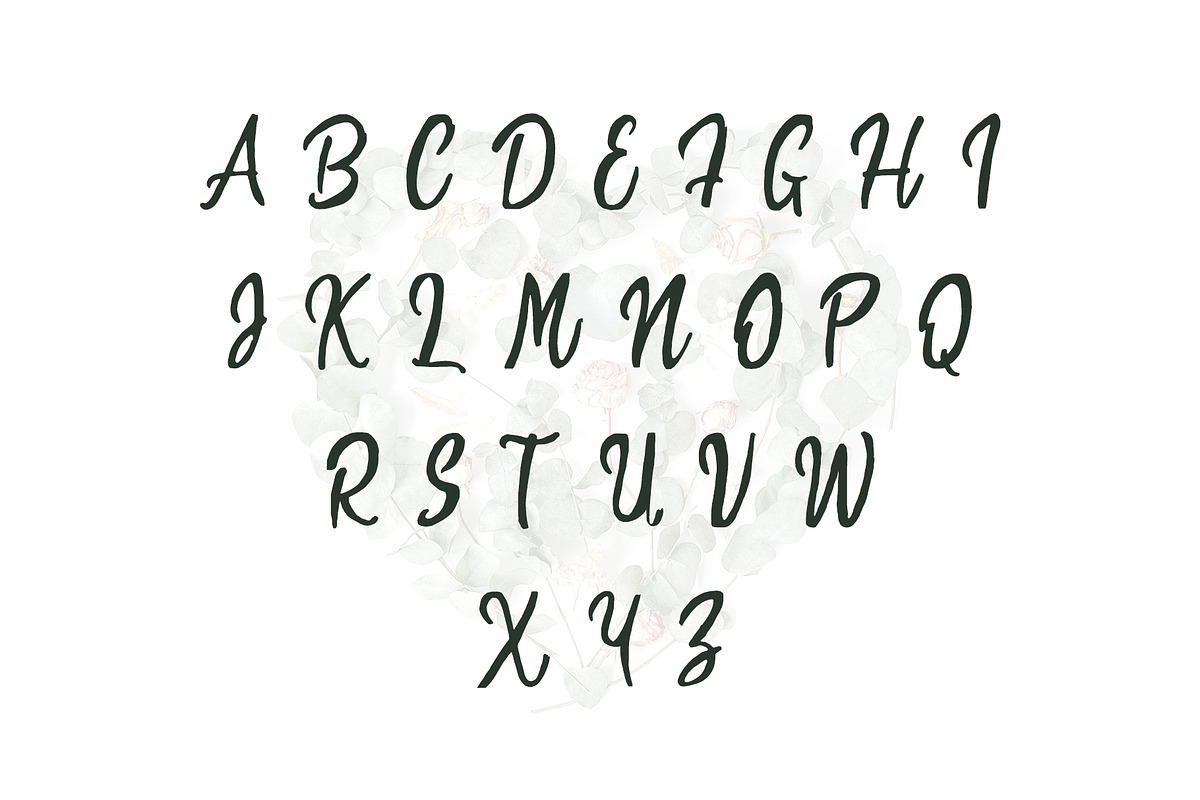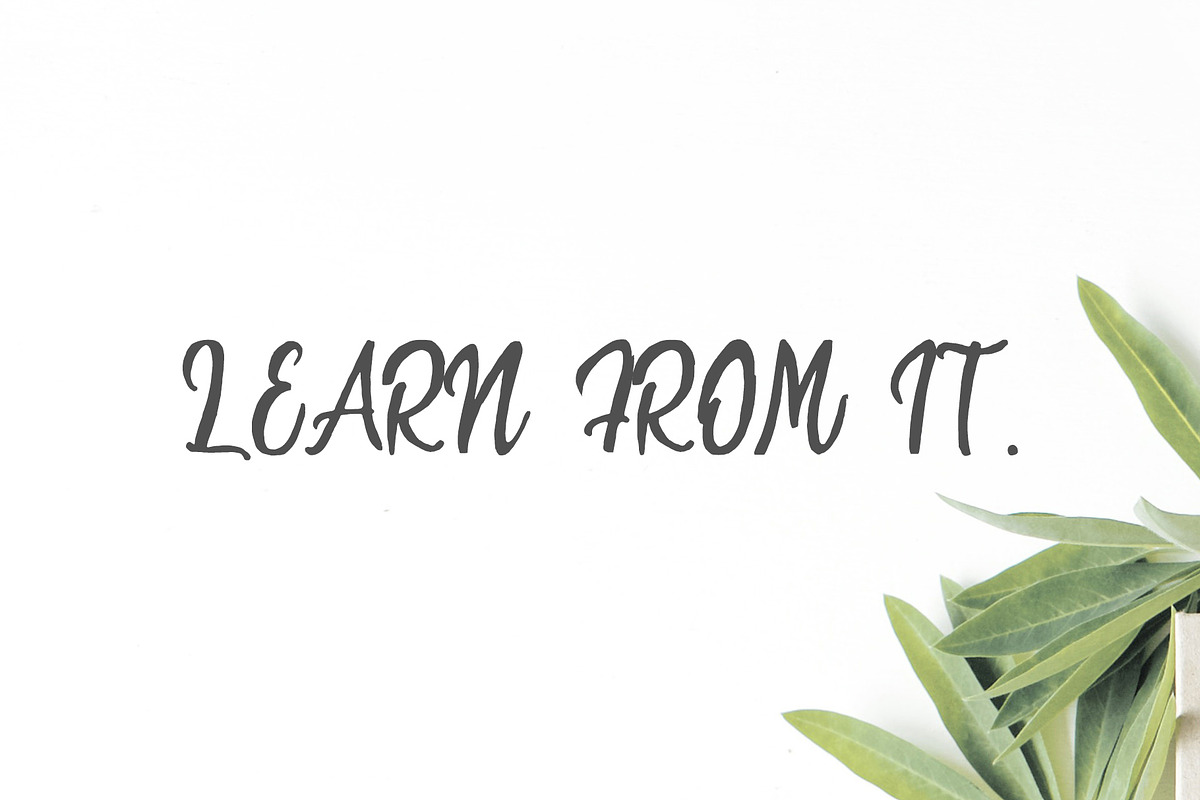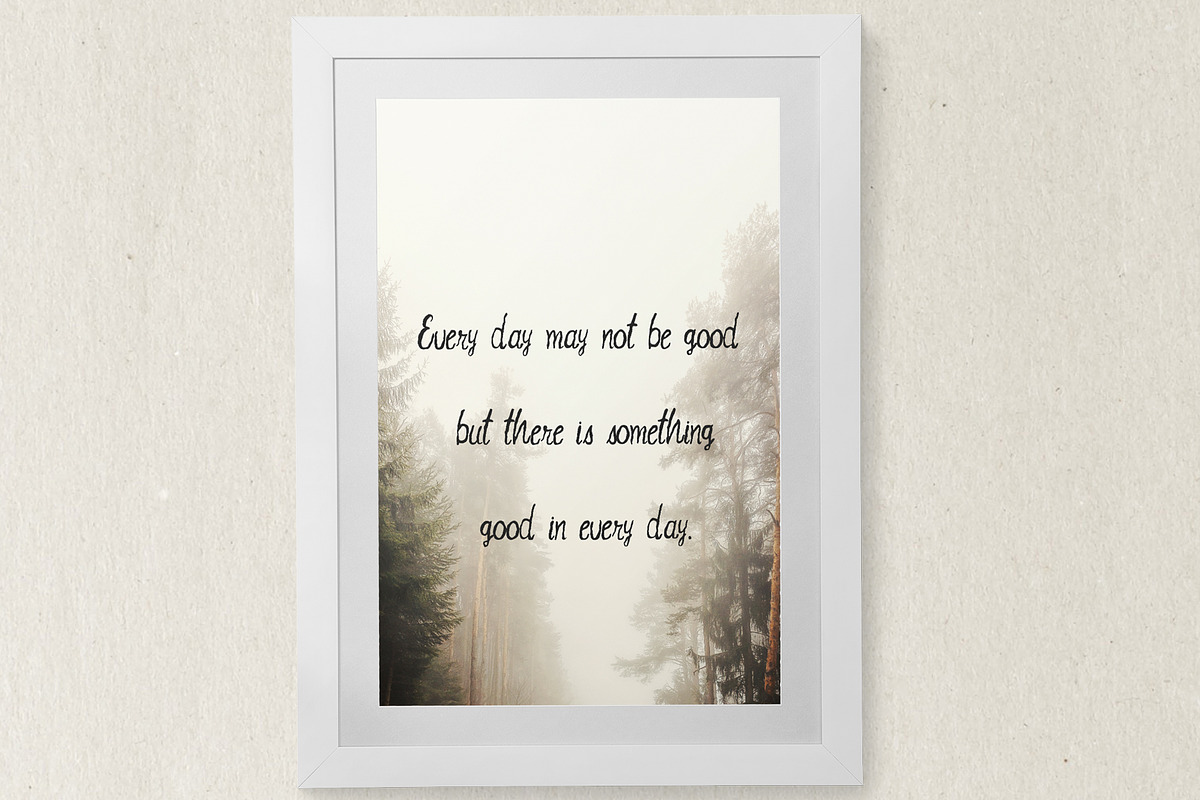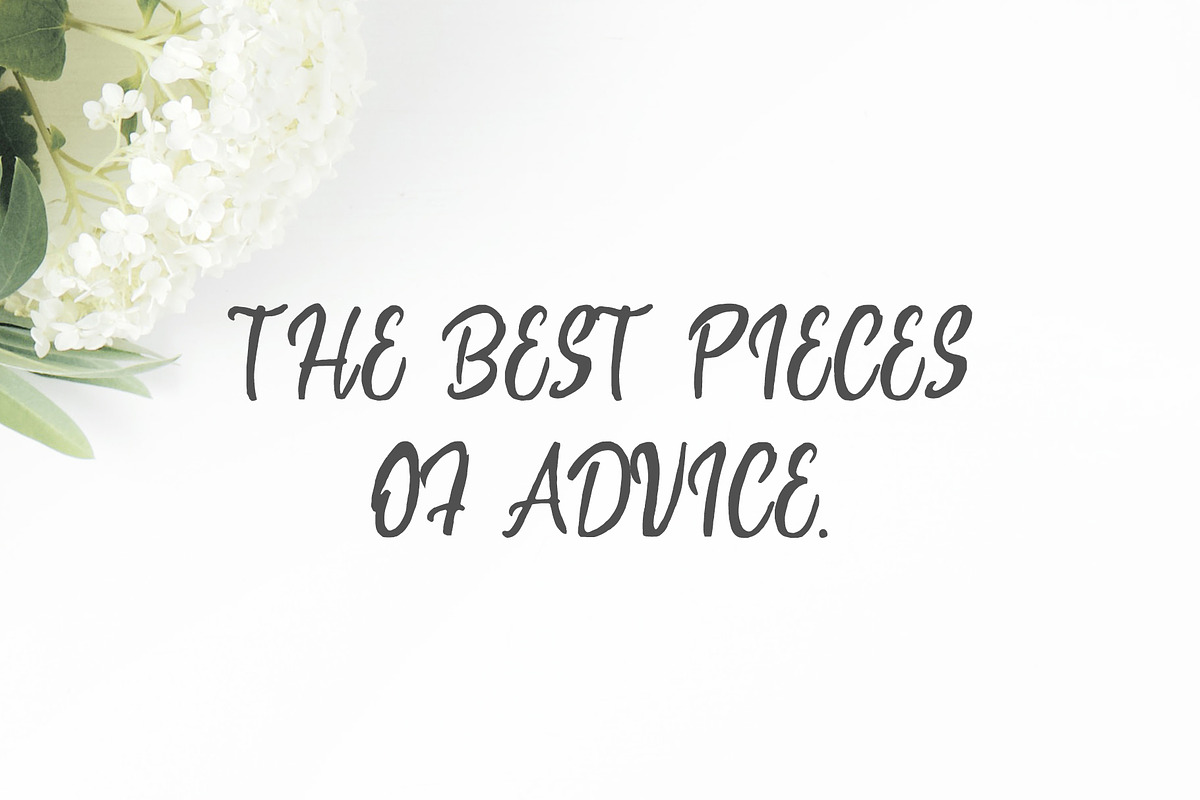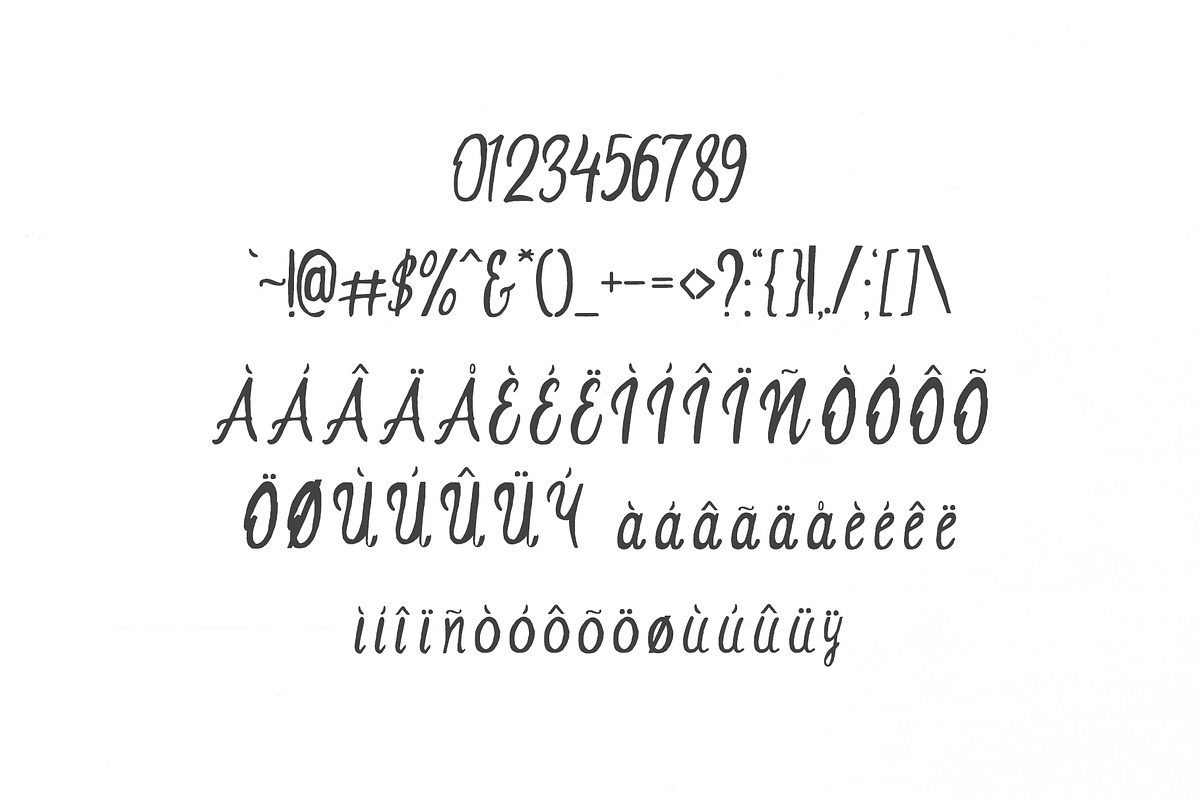
Saarah Fresh Handmade Font
Saarah is a fresh handmade script font written, with gentle curves to produce a font. It is very suitable for greeting cards, branding materials, wedding postcard, business cards, quotes, posters, small business, book covers, stationery, marketing, magazines and more.
Saarah Font Features:
Non English Characters ( Latin Supplement )
abcdefghijklmnopqrøtuvwxyz
!"#$%&'()+,-./:;=?@[]^`{|}~¡£¥©®¿€
ÀÁÂÃÄÅÈÉÊËÌÍÎÏÑÒÓÔÕÖØÙÚÛÜÝ
àáâãäåèéêëìíîïñòóôõöøùúûüýÿ